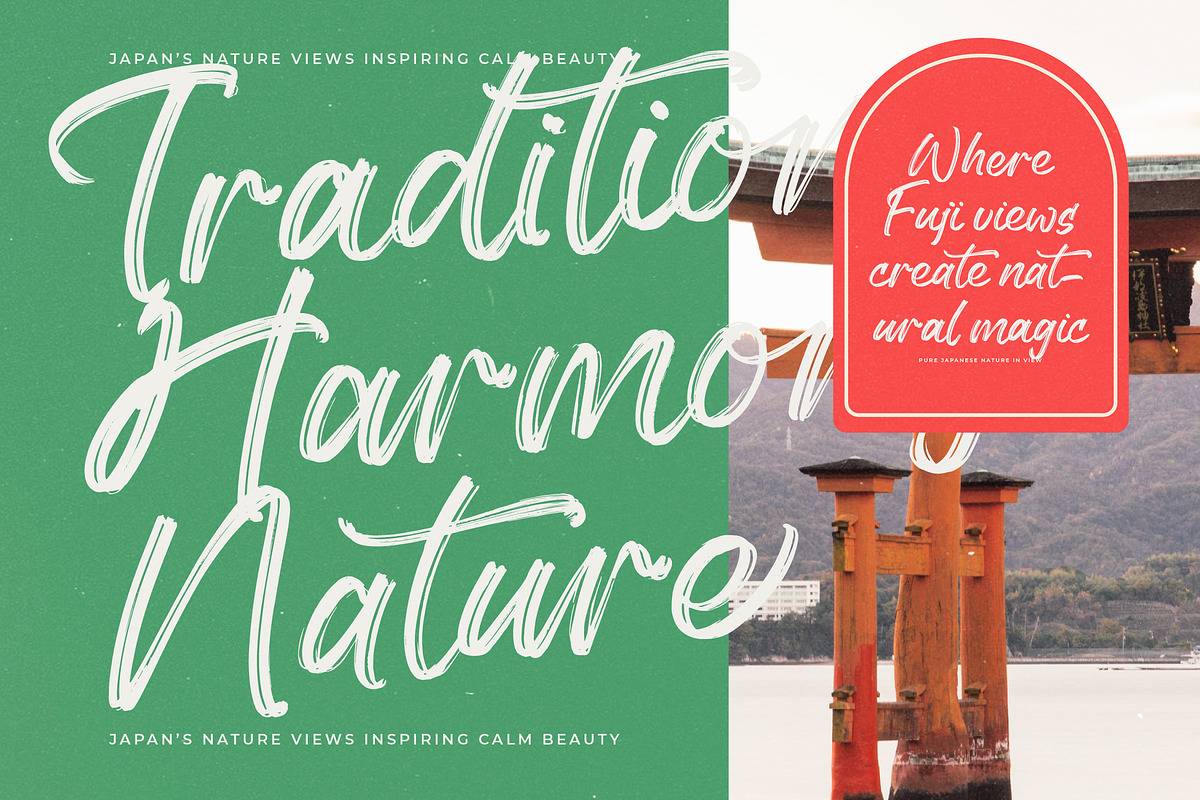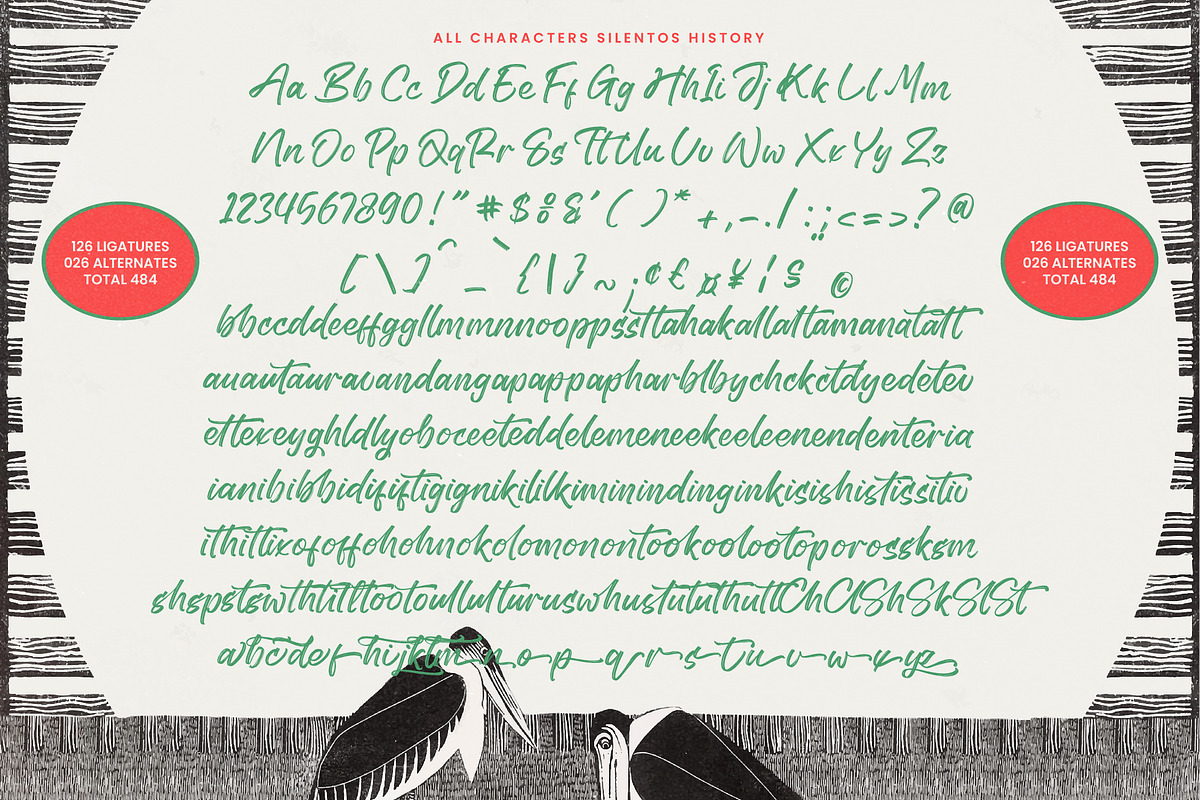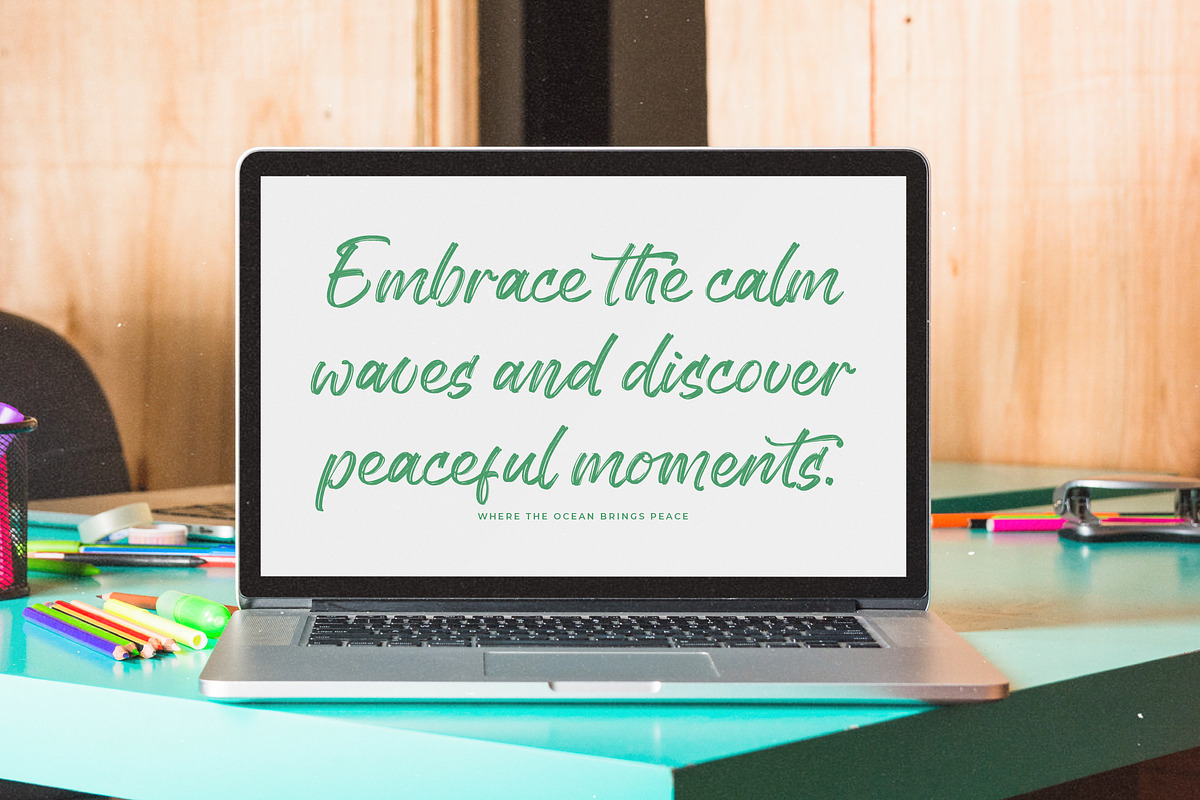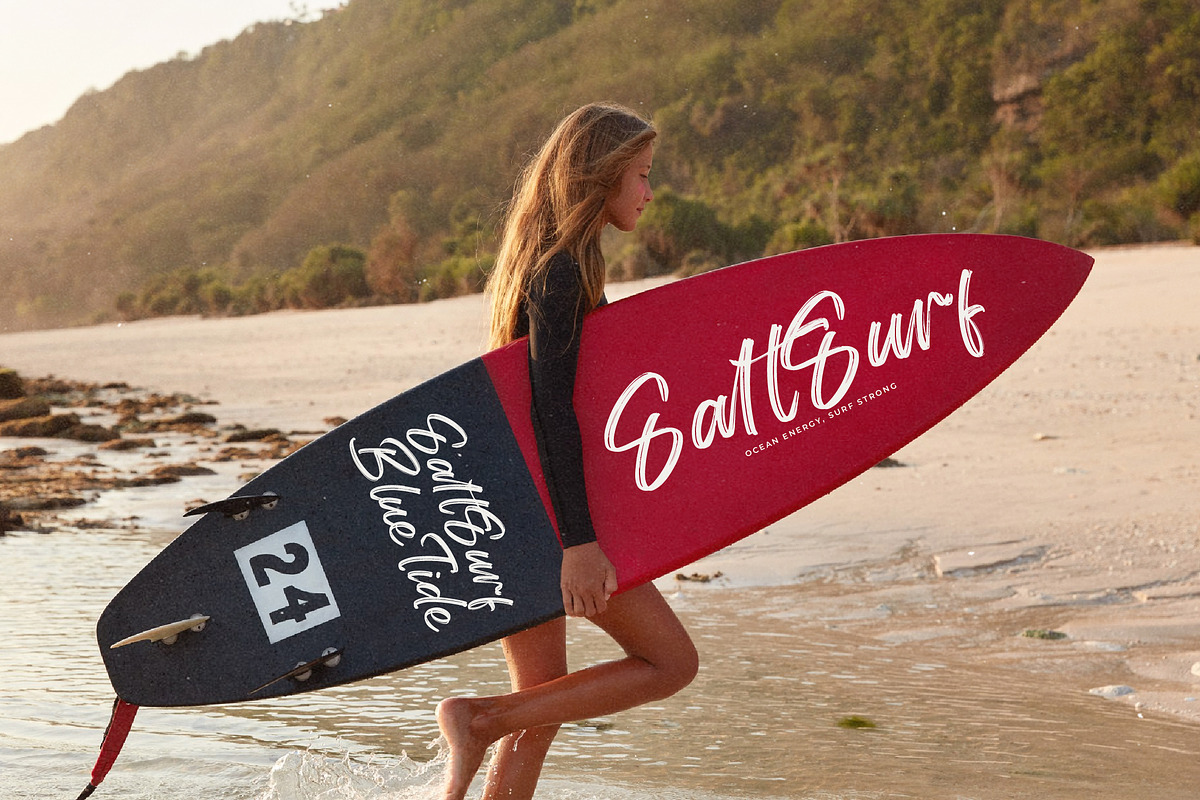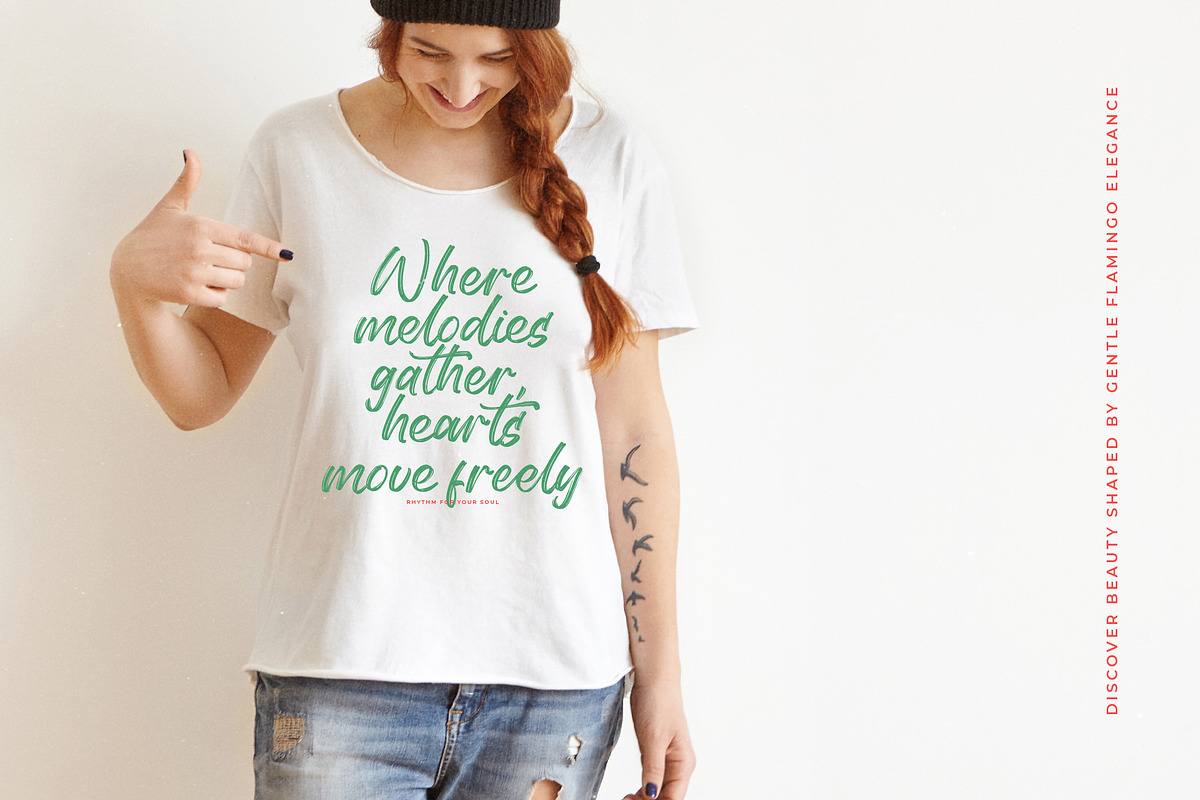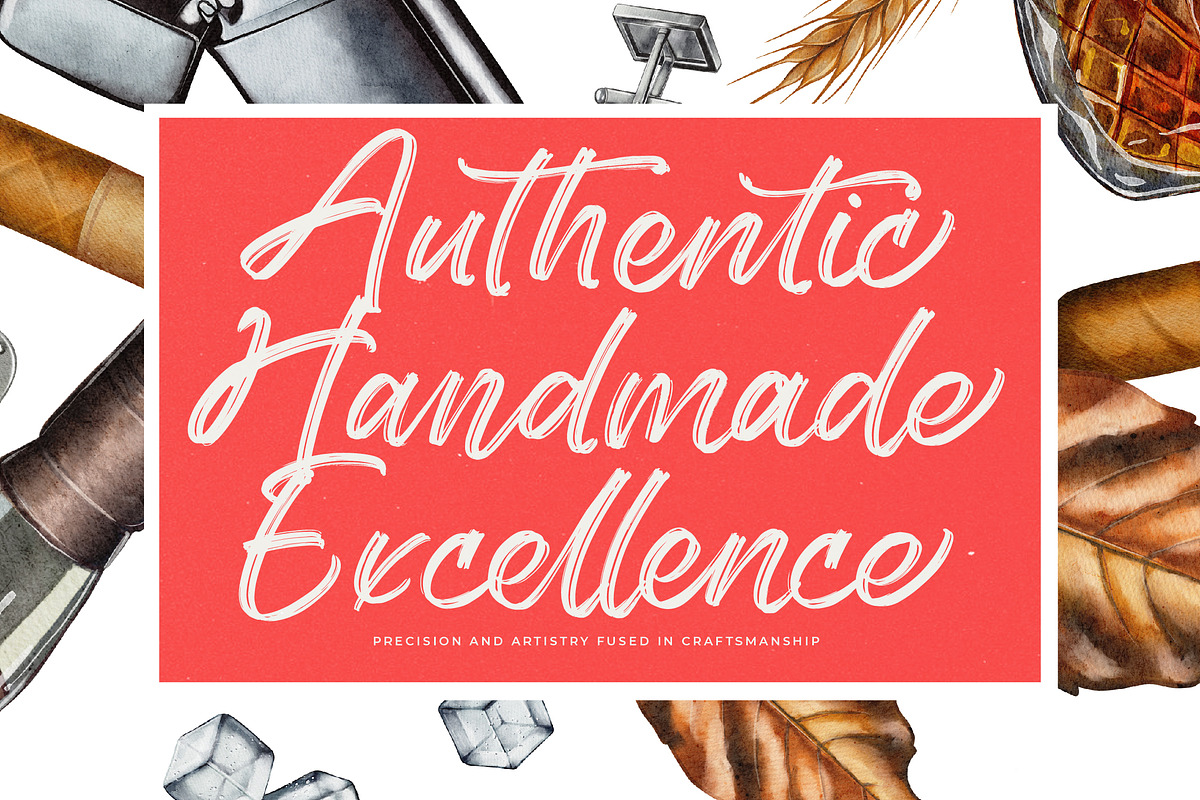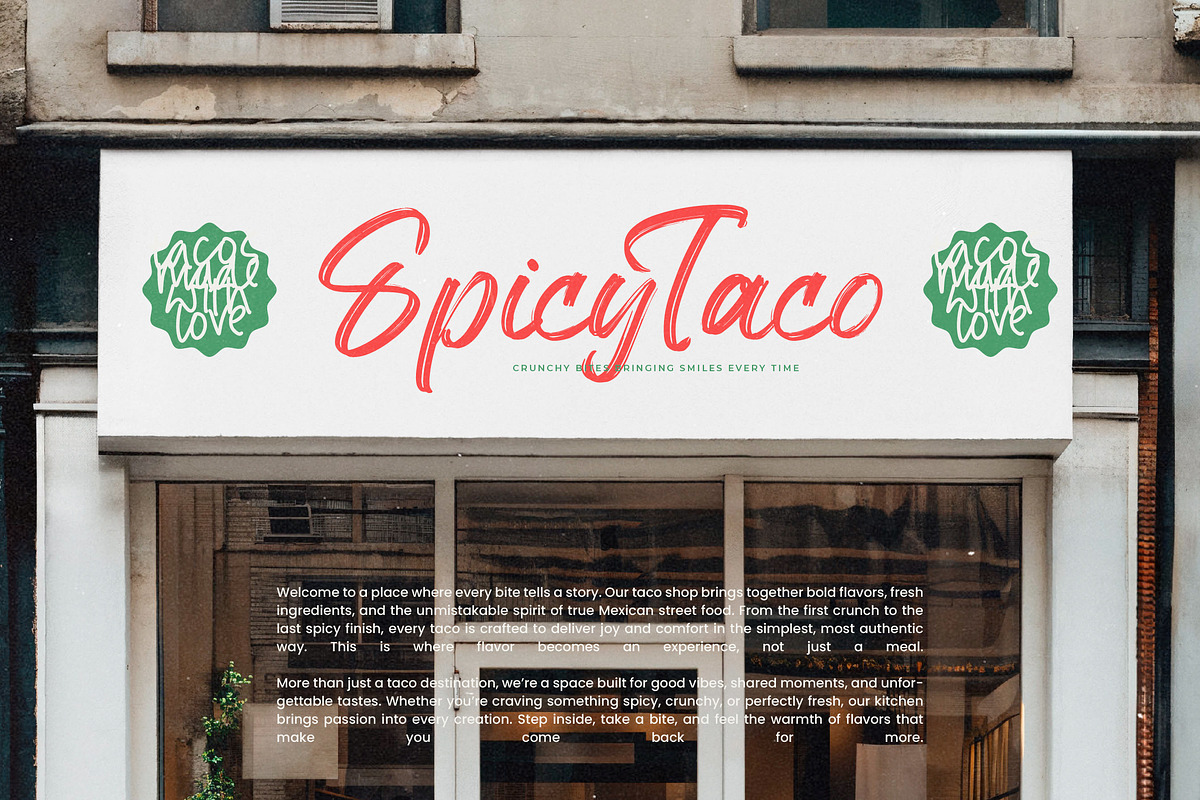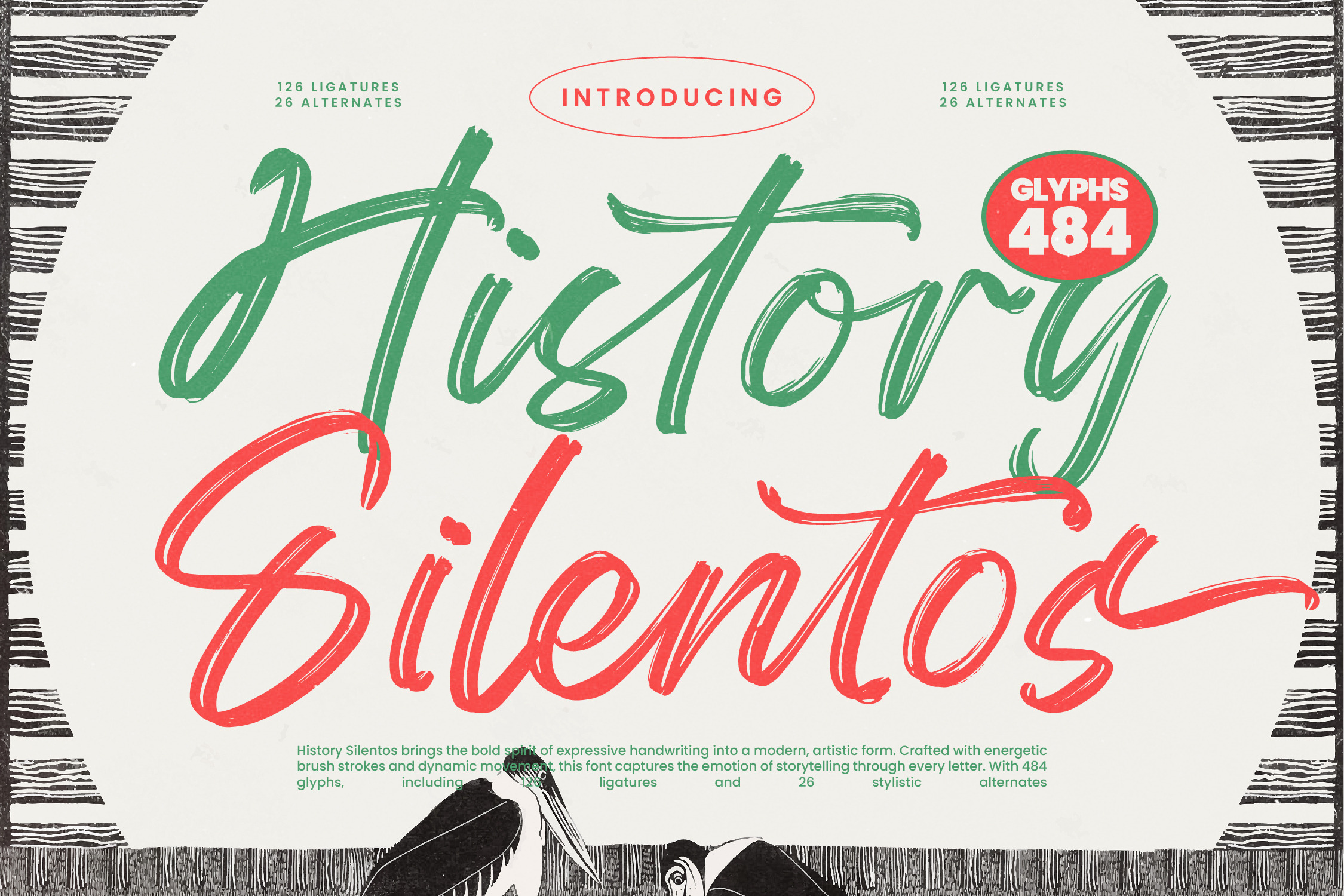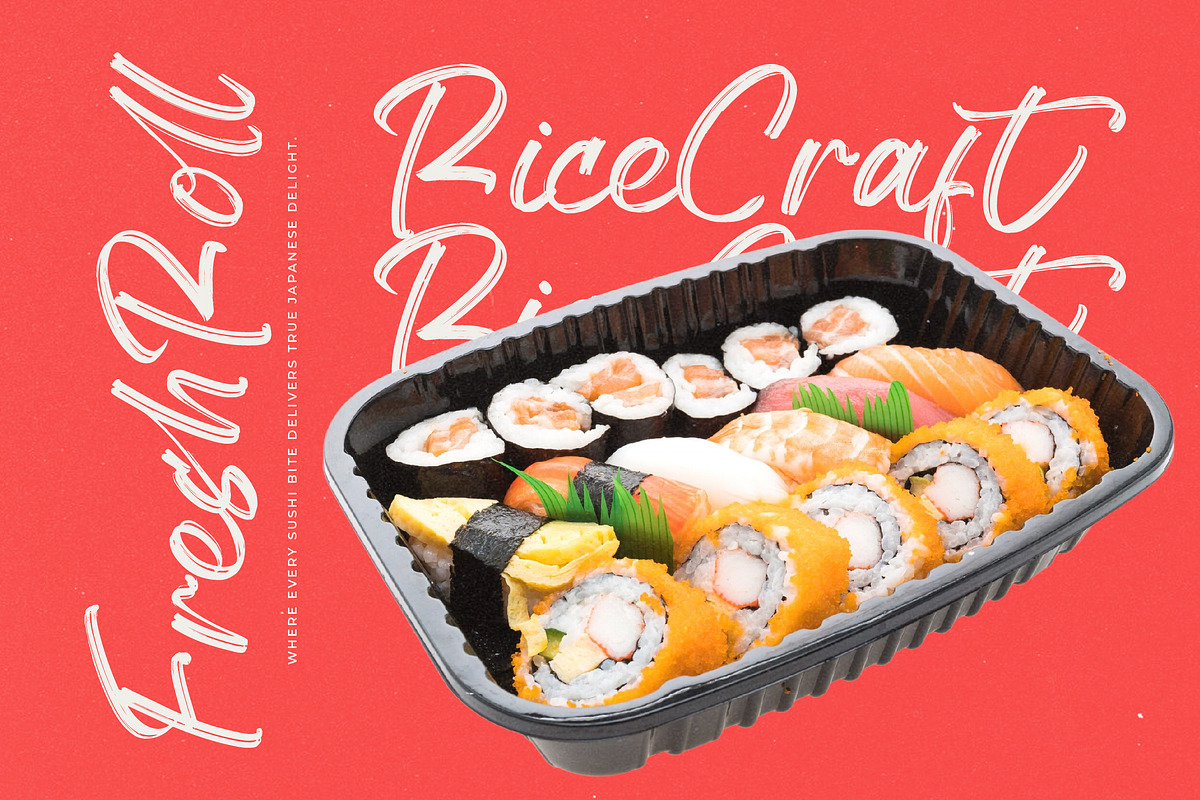
History Silentos Brush Script Font
History Silentos - Brush Script Font , History Silentos is an expressive handwritten brush font designed with bold energy, dynamic movement, and a raw artistic spirit. Every stroke feels alive, capturing the emotional flow of storytelling through sweeping curves and textured brush pressure. This typeface is perfect for projects that demand intensity, personality, and hand-crafted authenticity — such as poster designs, album covers, editorial graphics, street-art inspired branding, merchandise, social media titles, and creative advertising. With 484 glyphs, 126 ligatures, and 26 stylistic alternates, History Silentos gives you a complete toolkit to shape bold handwritten compositions that feel organic, vivid, and full of motion. Whether you're pushing a rebellious artistic look or a crafted expressive headline, this font delivers energy that stands out.